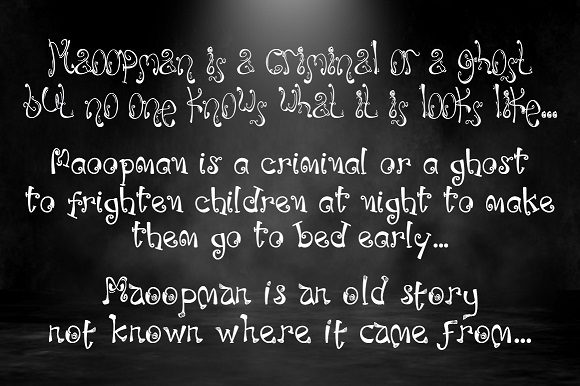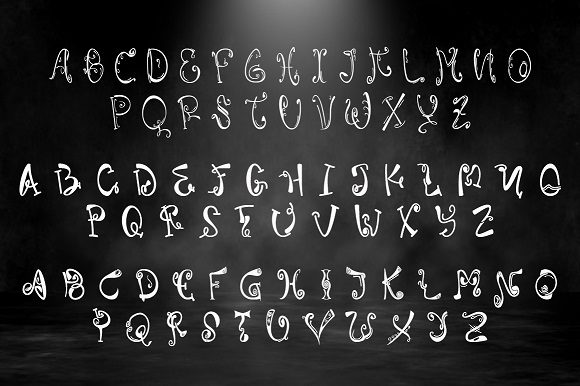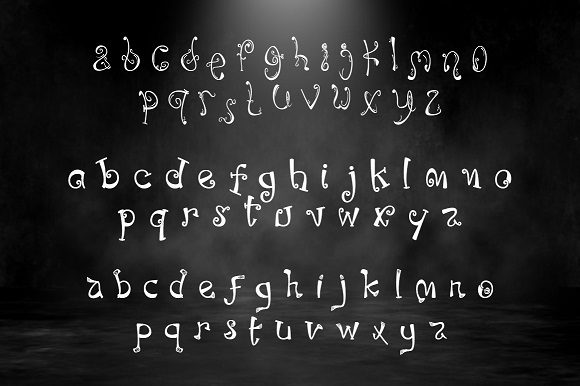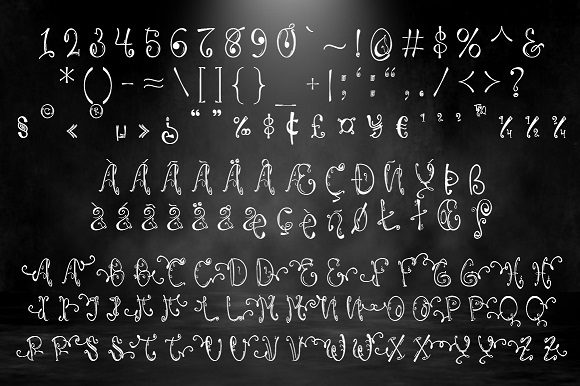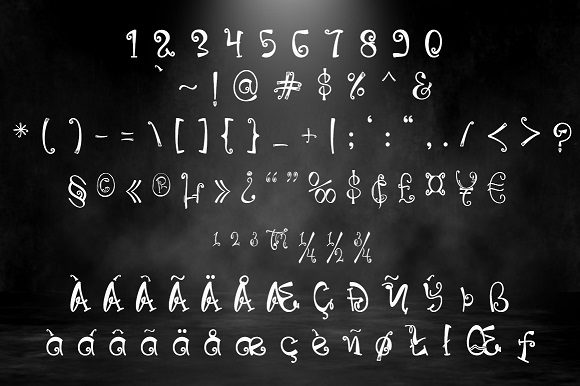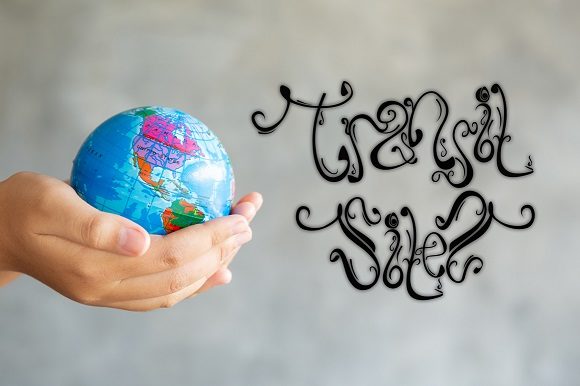
Introduction to MaoopMan Font
MaoopMan is a decorative font that works great for titles.
It is perfectly suited for a wide variety of creative projects .
Key Features of MaoopMan Font
Why Choose MaoopMan Font?